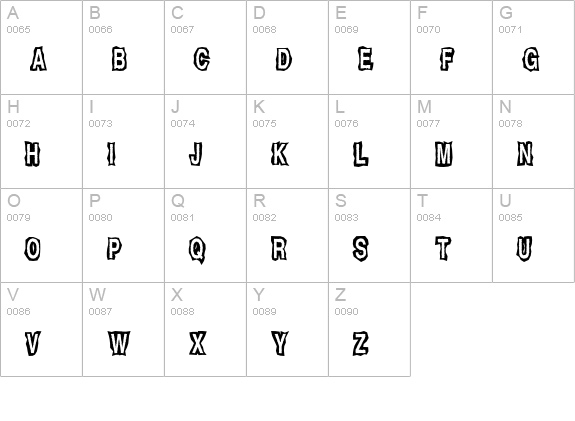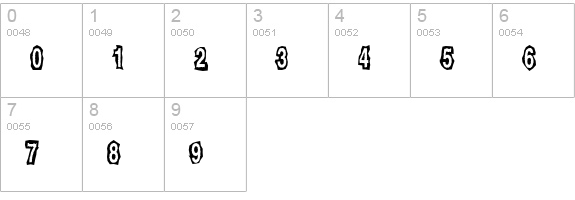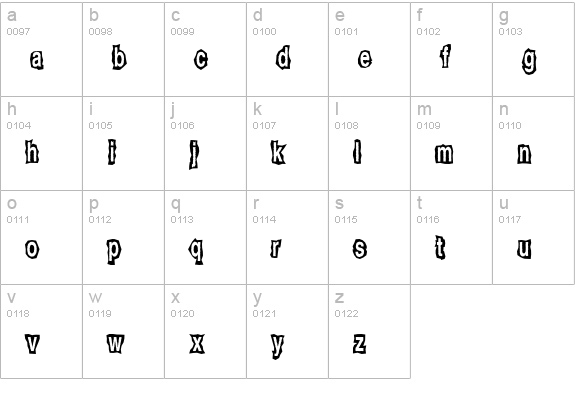
JackOLantern Font Details
Introducing JackOLantern font, a captivating typeface that will add an extra touch of spookiness to your Halloween designs! With its unique and intricate design, JackOLantern font is the perfect choice for any Halloween-themed project, whether it's posters, invitations, or party decorations. This font captures the essence of the classic Jack-o'-lantern, with its playful yet eerie appearance. Each letter is carefully crafted to resemble the flickering glow of a candle within a carved pumpkin, giving your text a truly mesmerizing effect. But the best part? JackOLantern font is absolutely free to download! That's right, you can get your hands on this incredible font without spending a dime. Simply head over to FontsMarket.com and grab your copy today. With JackOLantern font, you can unleash your creativity and bring your Halloween designs to life. Whether you're a professional designer or just someone who loves to get creative during the spooky season, this font is sure to impress. So don't miss out on this fantastic opportunity. Download JackOLantern font now and let your imagination run wild. Whether you're creating hauntingly beautiful graphics or simply adding a touch of Halloween spirit to your projects, this font will surely become your go-to choice. Get ready to amaze and enchant with JackOLantern font, available for free at FontsMarket.com.